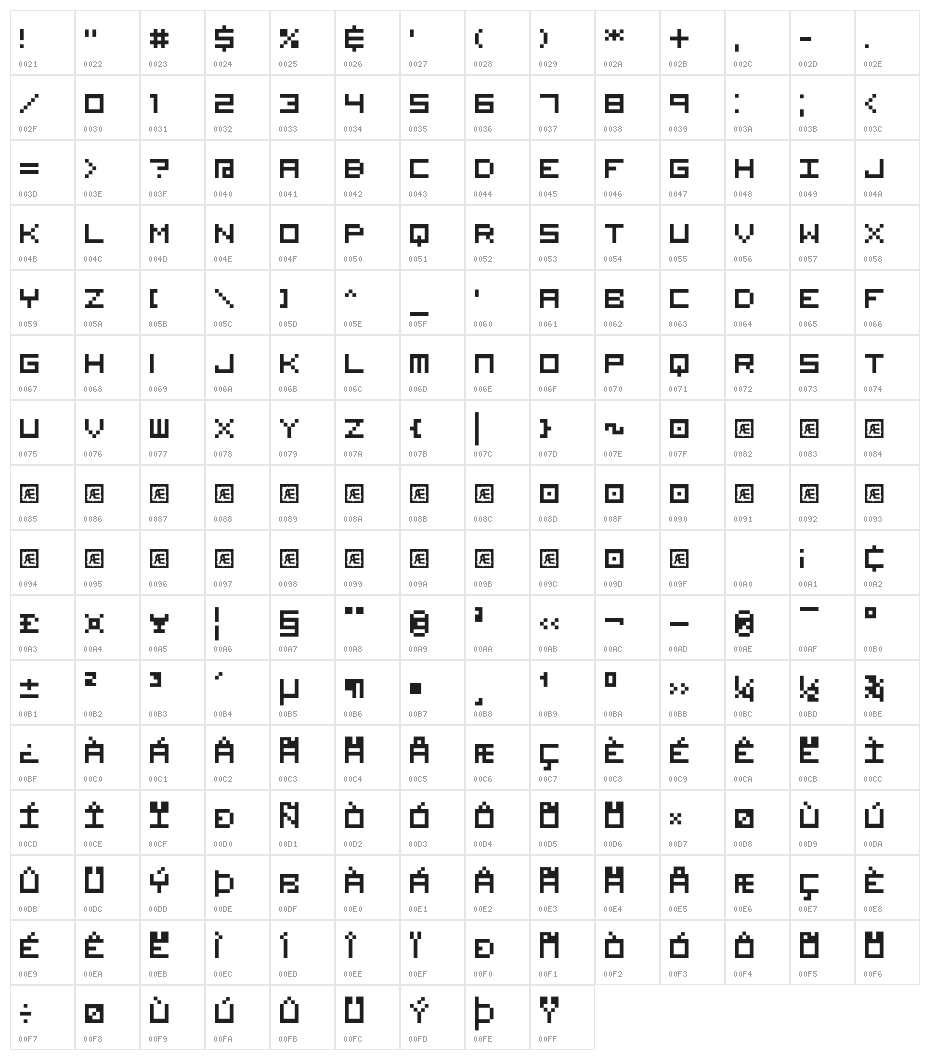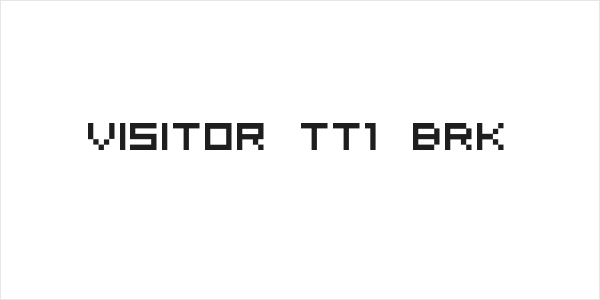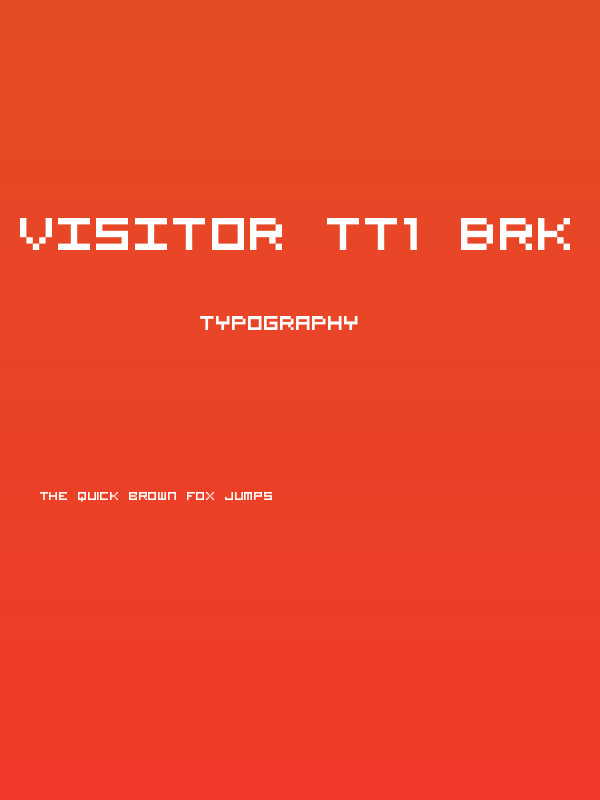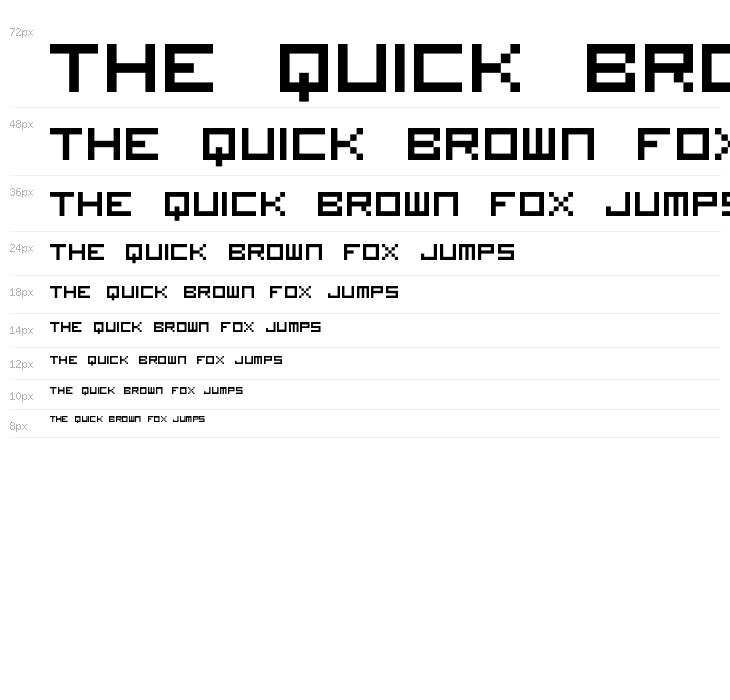
Visitor TT1 BRK Font
Visitor TT1 BRK Description
This font features a pixelated, blocky design reminiscent of early digital displays and retro video games. Each character is composed of a grid-like structure, giving it a distinctly digital and geometric appearance. The uniformity in stroke width across all characters contributes to a cohesive and consistent look. The uppercase and lowercase letters maintain a similar height, enhancing the font's monospaced characteristics. Numbers and special characters are designed with the same pixelated style, ensuring visual harmony throughout the typeface. This font is ideal for projects that aim to evoke nostalgia for classic computing or gaming aesthetics.
| Overall Style | Retro, Digital |
| Use Case | Logos, Headlines, Digital displays |
| Proposed Projects | Ideal for retro video game designs, digital art projects, tech-themed posters, and nostalgic branding. |